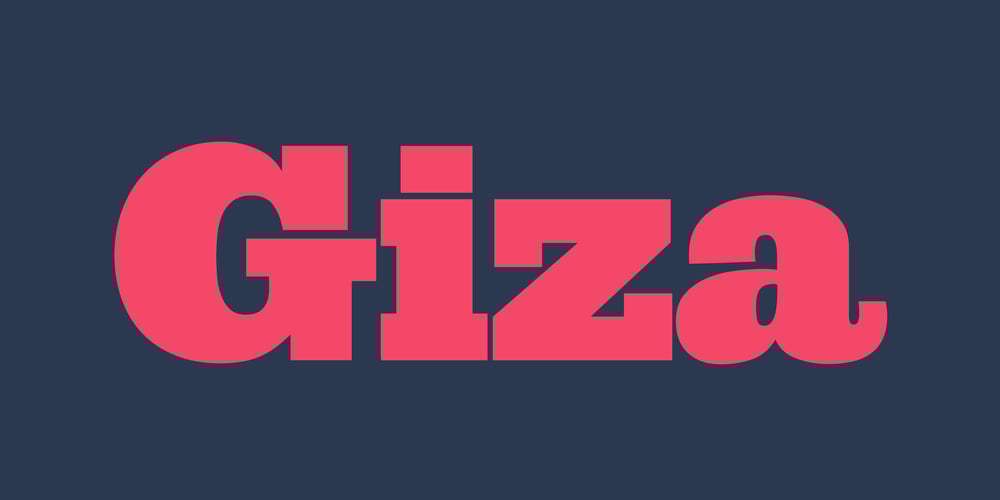
Giza
Giza font
Giza Font Family was designed by David Berlow and published by Font Bureau. Giza contains 16 styles and family package options. The sixteen styles of Giza bring back the colorful power and variety of the original Egyptian letterforms, a glory of the Victorian era. Designer David Berlow based the family on showings in Vincent Figgins’ specimen of 1845, the triumphant introduction of this thunderous style. The truly unforgettable “Nine” weights were designed for ultimate emphasis in posters, and do their most effective work in the very largest of sizes.